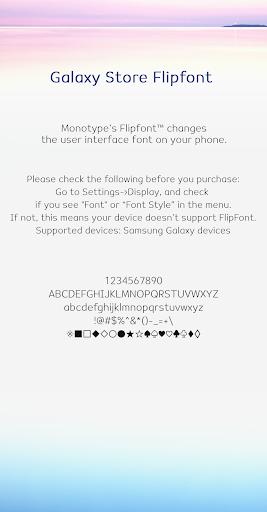
ZF Halcyon
This is a comfortable San Serif style font.
It is optimized for reading texts and shows a stable posture by widening the overall internal space.